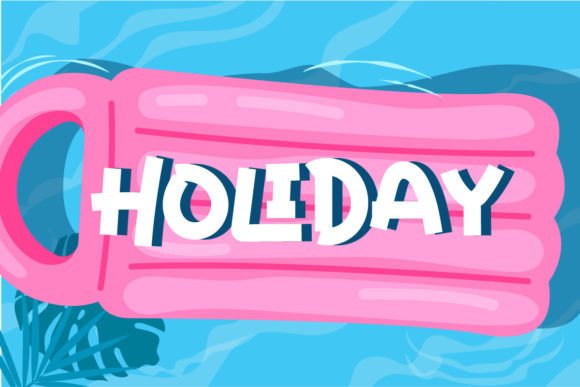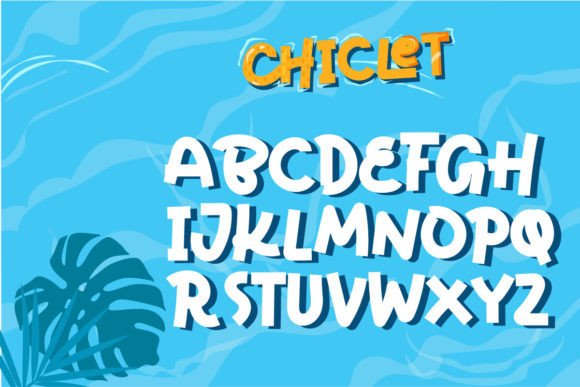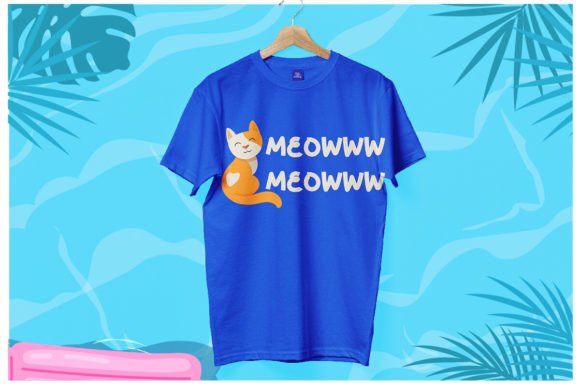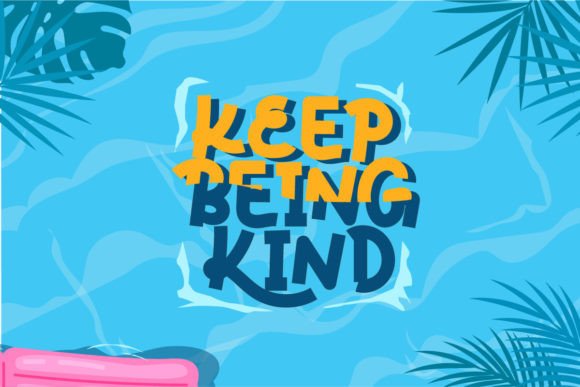
Introduction to Chiclet Font
Chiclet is a fun and friendly display font.
Whether you are using it for cartoon-related designs, children games, quotes, titles, brand names, book covers, posters, or just any creation that requires a touch of joy, this font is a great choice .
Key Features of Chiclet Font
Why Choose Chiclet Font?
Chiclet Font offers exceptional quality and versatility, making it a valuable addition to your design toolkit. Whether you’re creating for personal projects or commercial use, Chiclet Font delivers professional results.